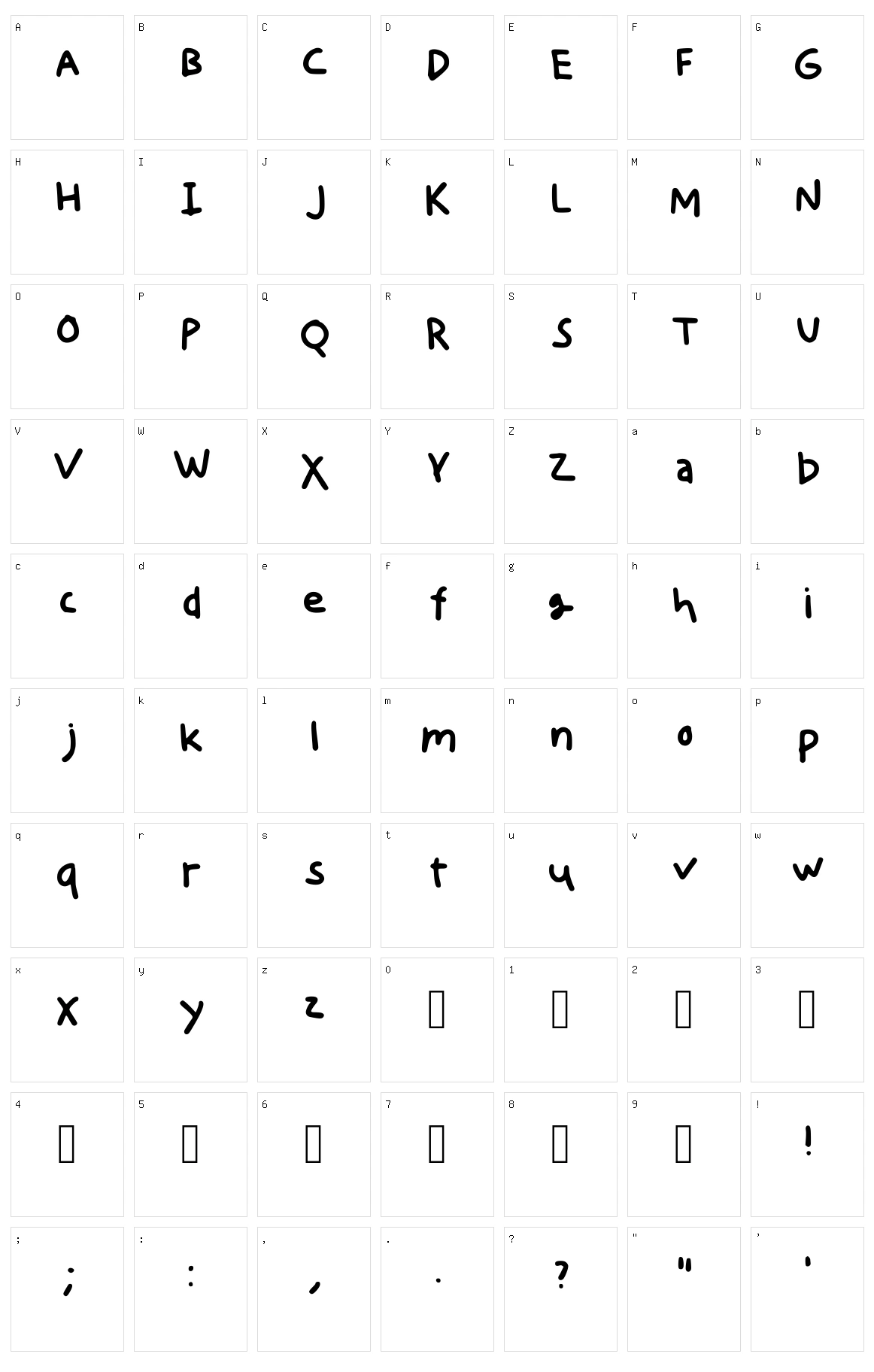
The free font Pretty Notes is carefully designed by Handwrittenfontss, showcasing a thoughtful balance of creativity and usability and falls under the Script font style. When you download the ZIP file, it contains only 7.07 KB of font files, making it lightweight and quick to download. Please review the license details below to understand permitted usage and distribution rights. If license information is not available, we recommend using this font for personal projects only or contacting the author directly for commercial usage permissions.